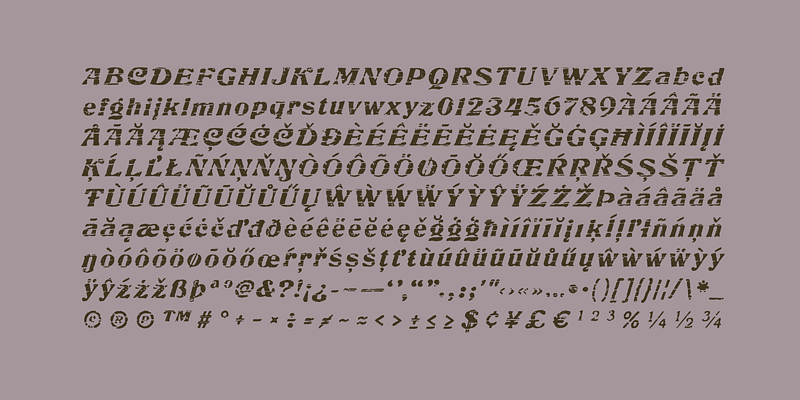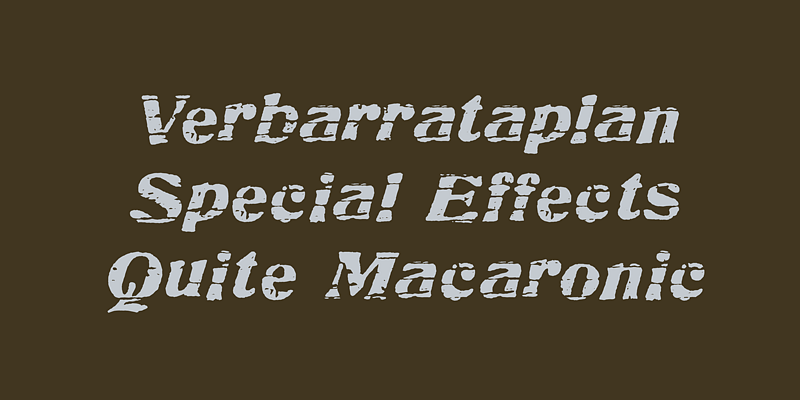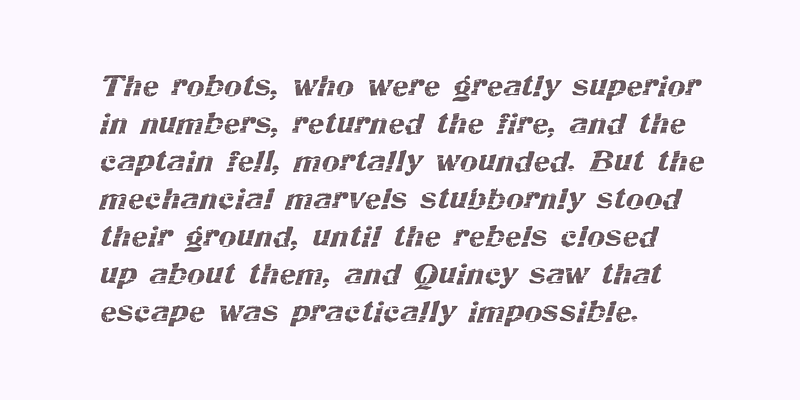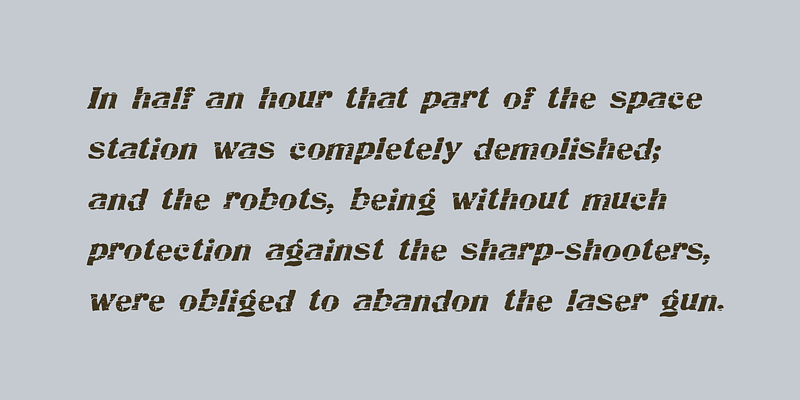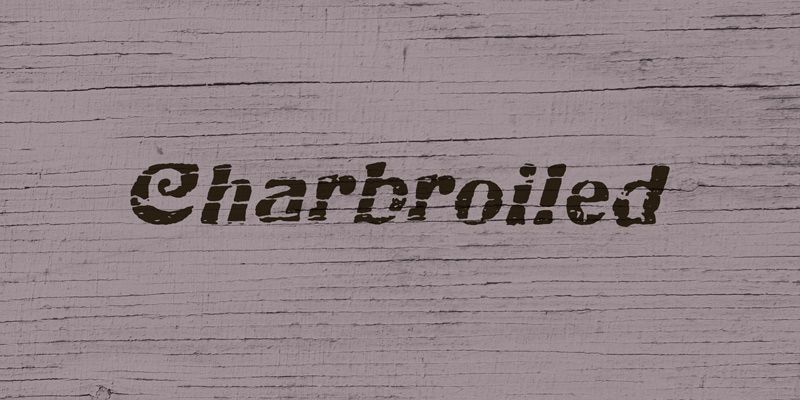
Charbroiled gives an old American italic display form a scorched, weathered surface. The narrow, forward-leaning letters have the energy of early commercial printing, while the distressed edges suggest heat, wood, and repeated handling. It is a direct fit for smokehouses, wood-fired kitchens, barbecue sauces, spice rubs, and other food made around live fire. Use it for a restaurant name, a signature dish, or a bold package front; its texture can do the atmospheric work in a few large words. Charbroiled also belongs on posters or merchandise for events that need a brisk vintage voice with more grit than polish.